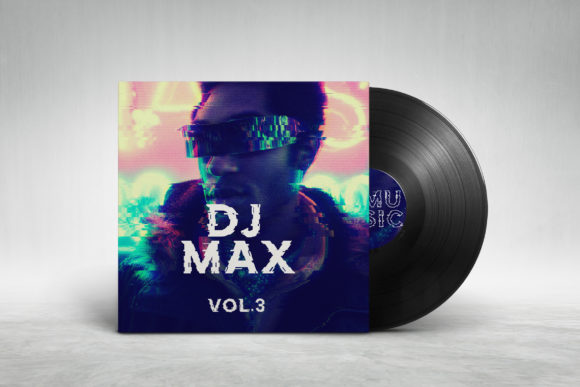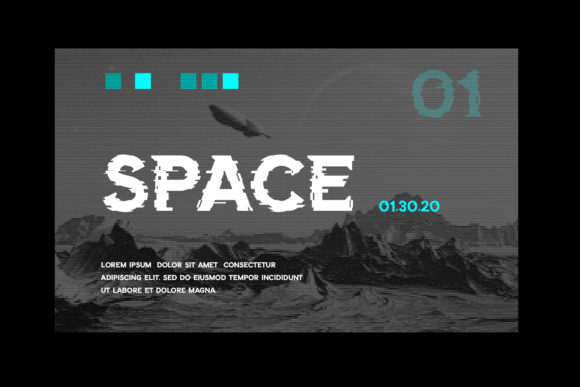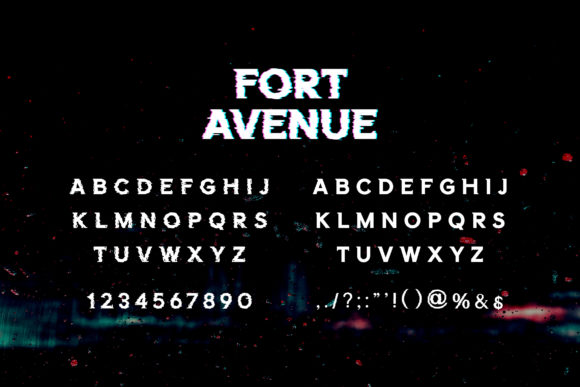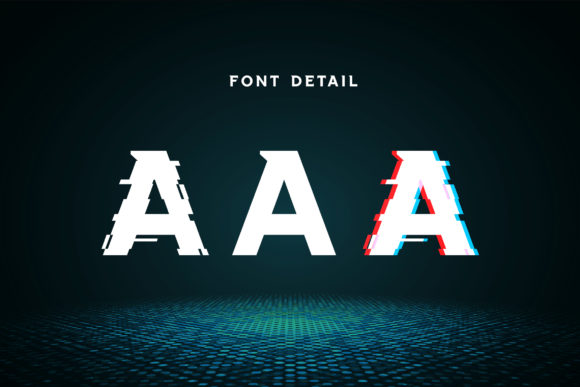
Discover the Bold and Modern Appeal of Fort Avenue Font
In the world of typography, fonts play a crucial role in conveying messages, expressing emotions, and creating visual identities. For designers and crafters, having access to a diverse library of high-quality fonts is essential for bringing their creative visions to life. One such font that has gained significant attention in recent times is Fort Avenue Font, a cool and modern display font that has the potential to elevate any design project. In this article, we’ll explore the features, benefits, and uses of Fort Avenue Font, and why it’s a must-have addition to your font library.
What is Fort Avenue Font?
Fort Avenue Font is a modern display font designed to make a statement. Its sleek and bold appearance makes it perfect for headlines, titles, and any other design element that requires attention-grabbing typography. The font’s clean lines, geometric shapes, and carefully crafted letterforms create a sense of sophistication and elegance, making it suitable for a wide range of design applications.
Key Features of Fort Avenue Font
- Unique and Modern Design: Fort Avenue Font boasts a distinctive and contemporary design that sets it apart from other fonts. Its unique blend of geometric shapes and elegant lines creates a visually appealing aesthetic.
- High Versatility: This font is incredibly versatile and can be used for various design projects, including logos, posters, flyers, brochures, and digital media.
- Excellent Legibility: Fort Avenue Font is designed to be highly legible, even at large sizes, making it perfect for headlines and titles.
- Easy to Pair: The font’s neutral design makes it easy to pair with other fonts, allowing designers to create harmonious and balanced typography.
Benefits of Using Fort Avenue Font
So, why should designers and crafters add Fort Avenue Font to their library? Here are some benefits of using this amazing font:
- Elevate Your Designs: Fort Avenue Font can instantly elevate your designs, adding a touch of sophistication and modernity.
- Save Time: With its versatility and legibility, Fort Avenue Font can save you time and effort in finding the perfect font for your project.
- Stand Out from the Crowd: The font’s unique design ensures that your designs will stand out from the crowd, grabbing attention and making a lasting impression.
Who Can Benefit from Fort Avenue Font?
Fort Avenue Font is an excellent addition to the library of:
- Graphic Designers: Whether you’re working on a logo, brochure, or website, Fort Avenue Font can add a professional touch to your designs.
- Crafters: If you’re creating handmade products, such as signs, cards, or invitations, Fort Avenue Font can add a modern and stylish element to your creations.
- Digital Artists: For digital artists, Fort Avenue Font can be used to create stunning visual effects, adding depth and dimension to their artwork.
In conclusion, Fort Avenue Font is an exceptional addition to any design library. Its modern and bold design, versatility, and legibility make it an incredibly valuable asset for designers and crafters. Whether you’re working on a commercial project or a personal creative endeavor, Fort Avenue Font has the potential to elevate your designs and help you achieve your creative goals. So, what are you waiting for? Add Fort Avenue Font to your library today and discover the power of stunning typography!